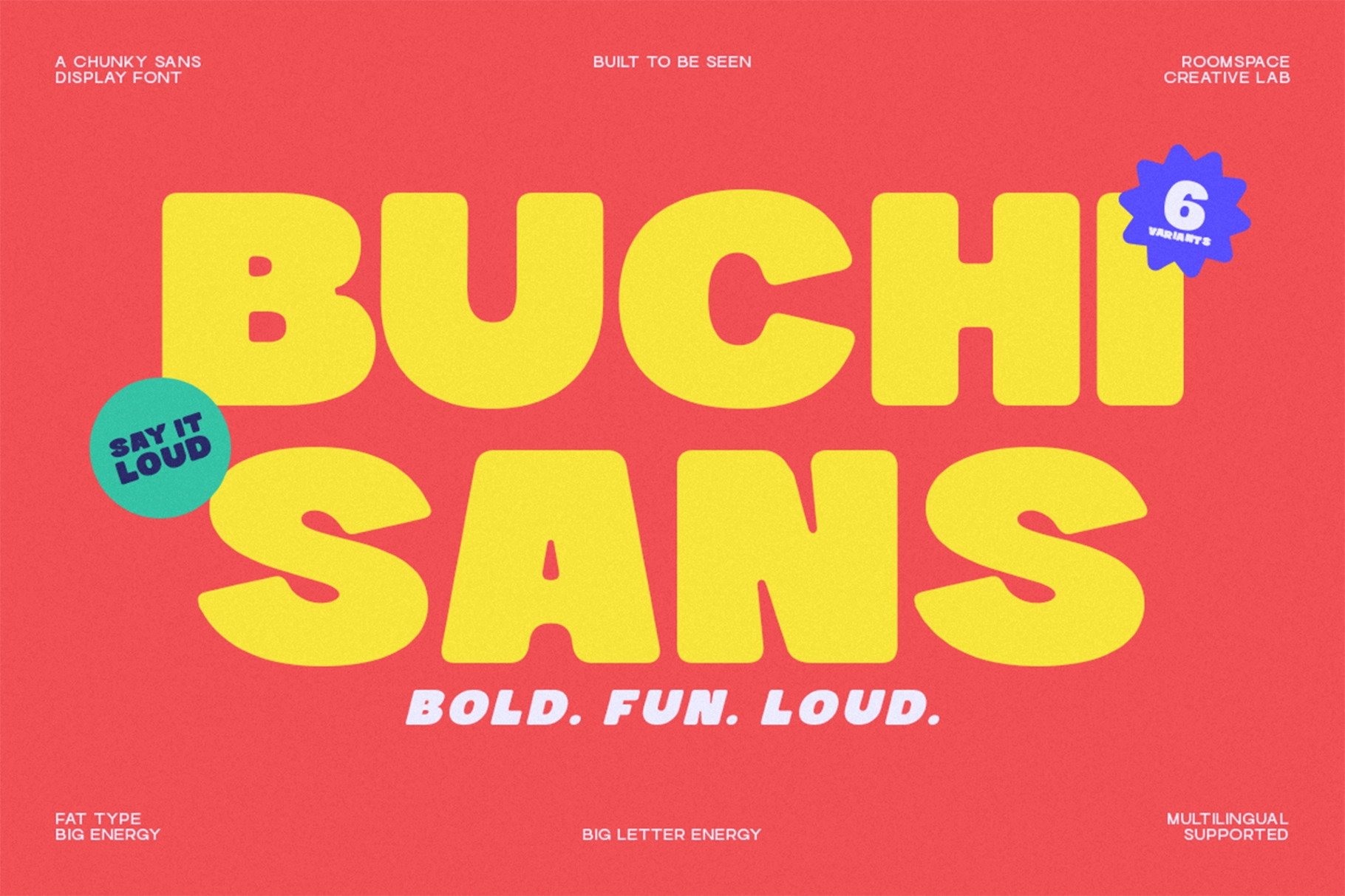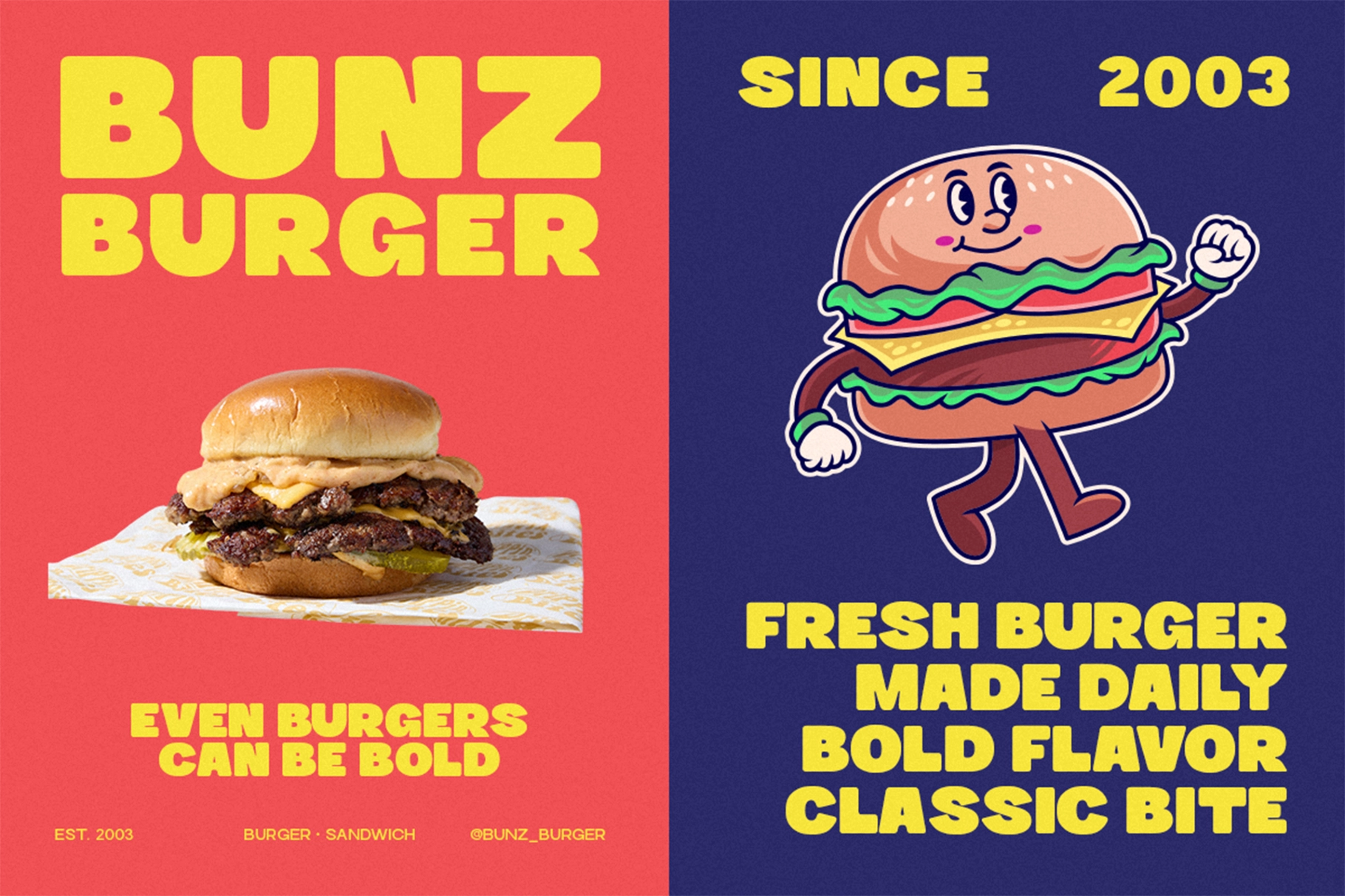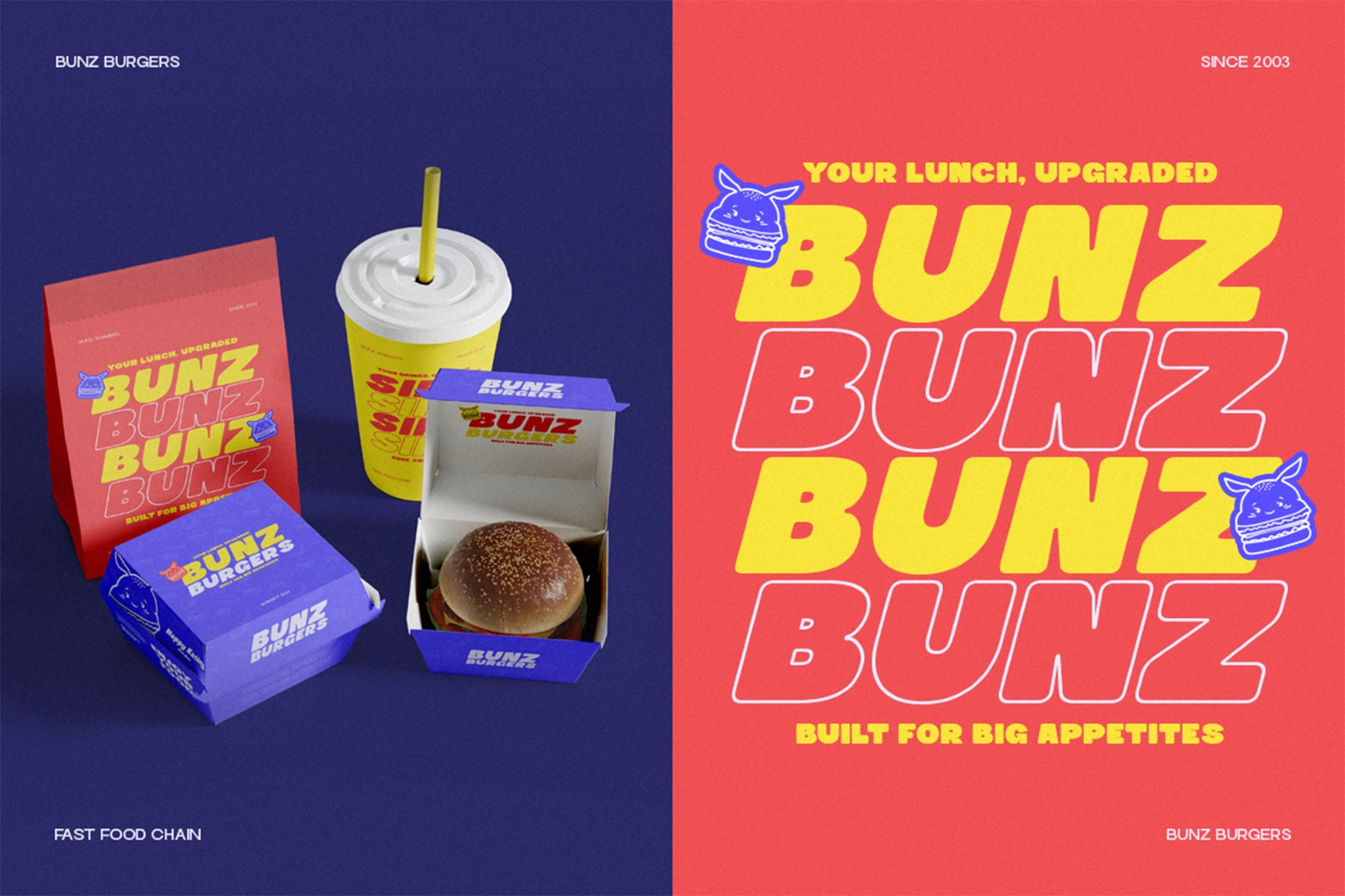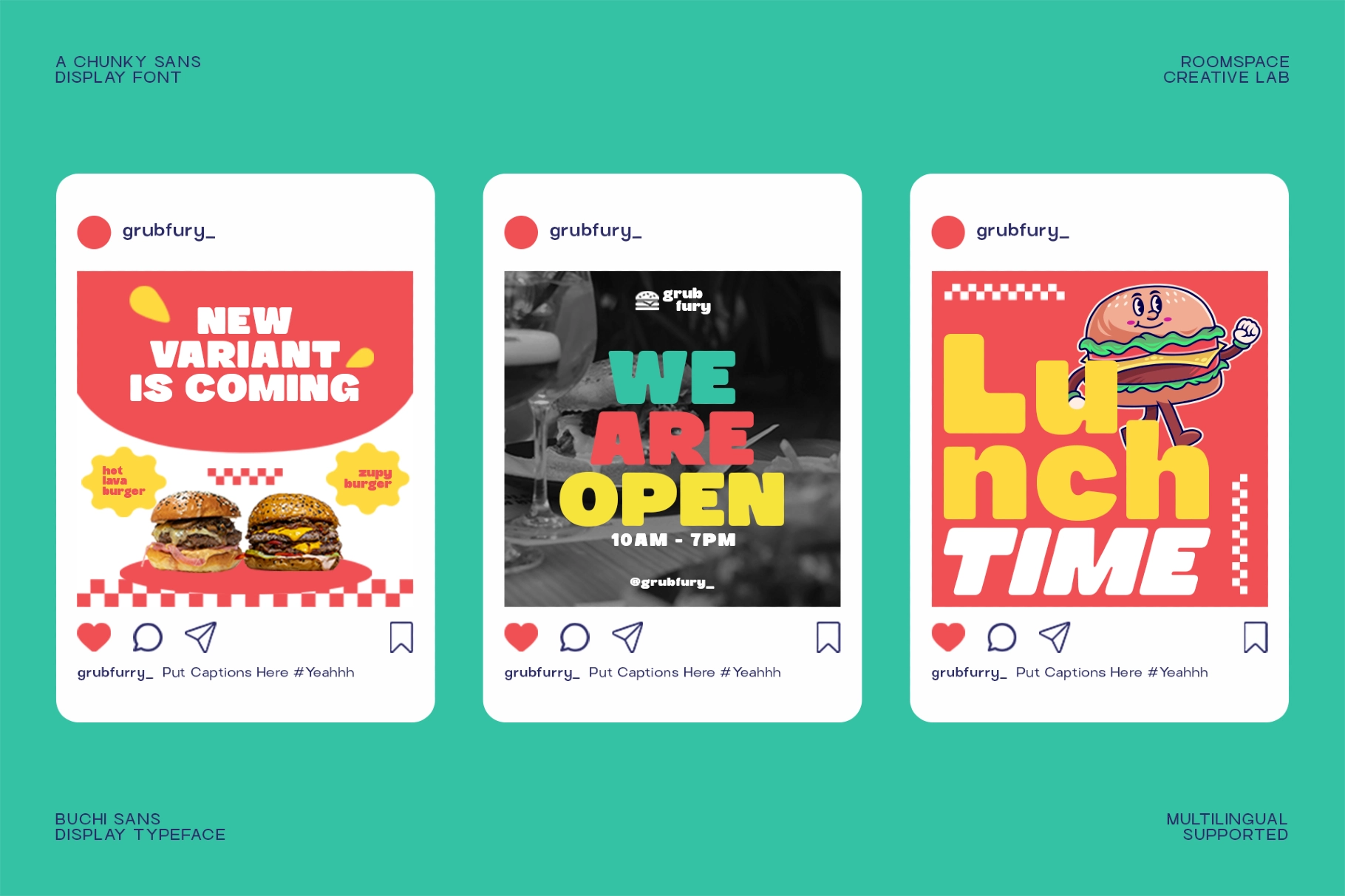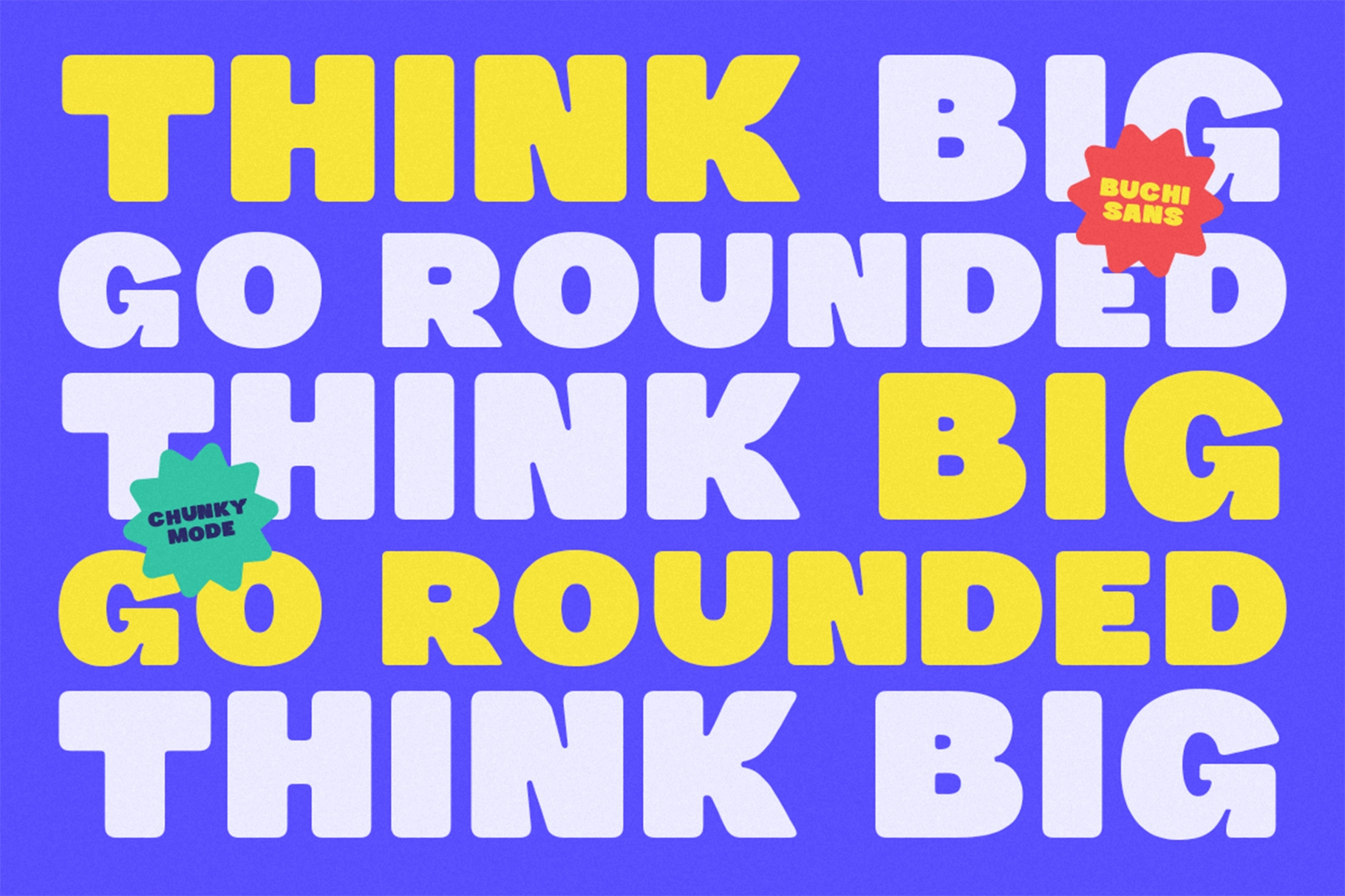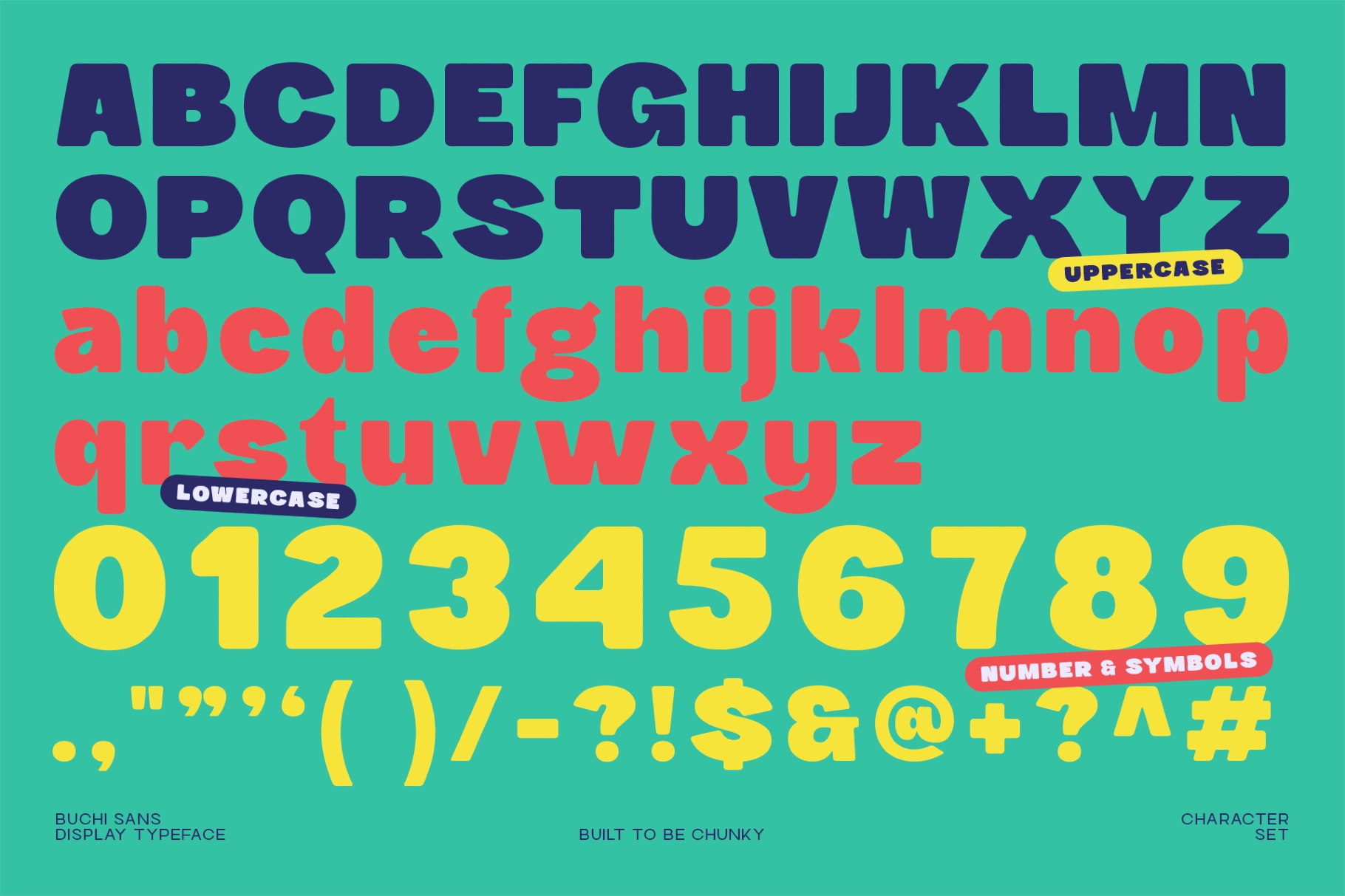
Buchi Sans – Bold Chunky Display Font
This display font is loud, rounded, and unapologetically chunky, with oversized letterforms made for instant attention. Its soft curves, heavy shapes, and bright personality suit food branding, kids’ graphics, playful packaging, event posters, and social content that needs to shout without getting rude.
Buchi works well for burger shops, snack packaging, stickers, merchandise, logo marks, menu boards, launch announcements, Instagram posts, YouTube thumbnails, festival graphics, toy branding, promo banners, and campaign headlines. The character set includes uppercase, lowercase, numbers, punctuation, and symbols, giving the font enough range for short copy, bold titles, and punchy brand systems.
- 2 Styles: Regular, Outline
- 3 Type: Regular, Slant, BackSlant
- Uppercase & lowercase
- Numbers, punctuation & symbols